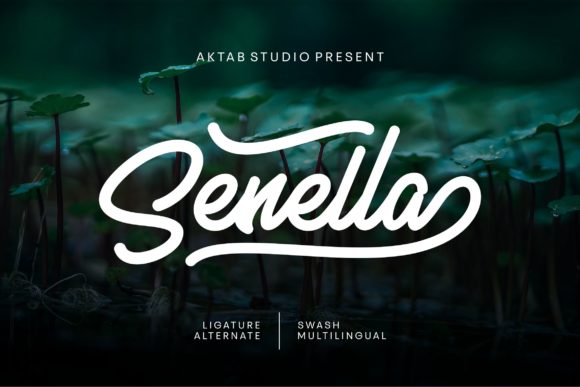
Behold, Senella Script Font, a vintage treasure crafted by Aktab Studio, awaits your design adventures. Immerse yourself in the timeless charm of this display font, where elegance and versatility dance together.
Unleash your creativity and embark on a journey through fashion, branding, and print designs, leaving an indelible mark wherever your imagination leads. Senella Script Font is a symphony of sophistication, ready to elevate your designs to new heights.
With its captivating swashes, Senella Script Font adds a touch of timeless elegance to your projects. Let your designs exude an air of refinement, attracting attention and leaving a lasting impression.
Allow Senella Script Font to transport you to a world of vintage charm and modern elegance. This font is not merely a collection of letters; it's an expression of artistry that transforms your designs into captivating masterpieces.
Elevate your designs to new heights with the enchanting Senella Script Font. Its vintage essence and versatility make it the perfect choice for those seeking a font that exudes sophistication and charm.